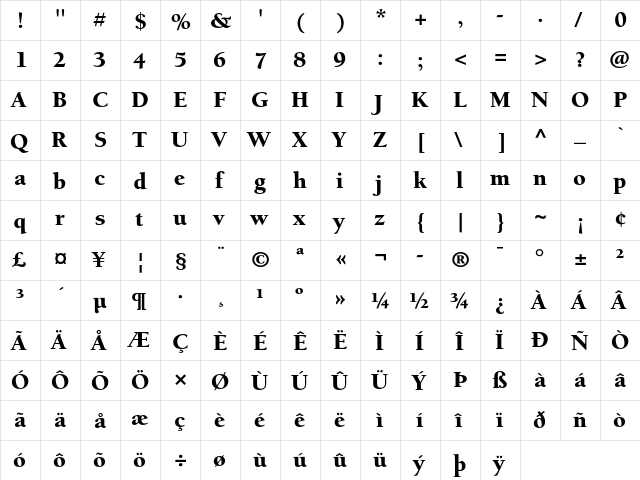
Berkeley Oldstyle Black
Design Context for Berkeley Typeface
Berkeley carries the refined structure of traditional serif typography, with bracketed terminals and considered proportions that communicate credibility and craft.
Pro Tip: Set Berkeley with slightly loose tracking in headlines to let each letterform's detail read clearly at display sizes.